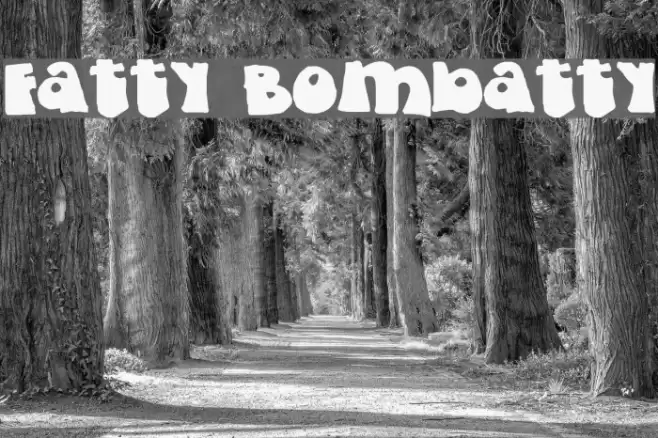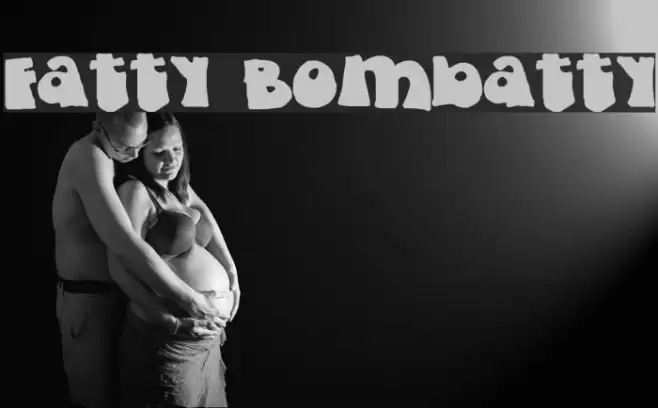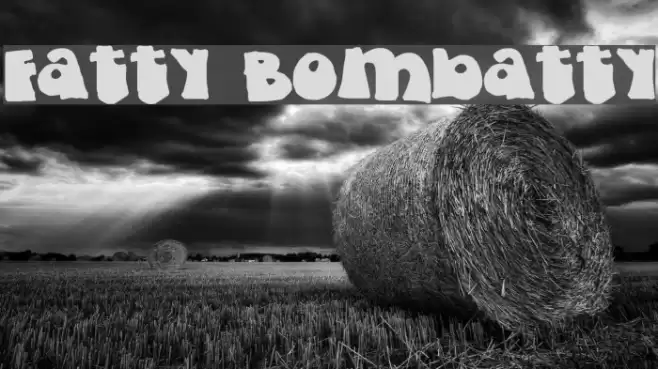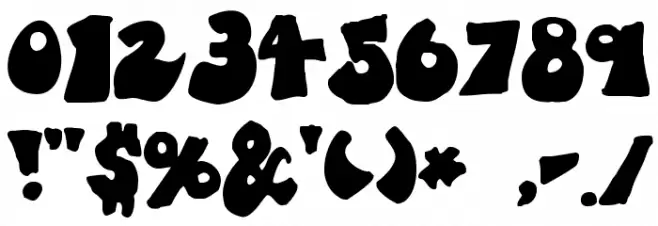
Fatty Bombatty Font
Fatty Bombatty Description
This font features a bold and playful design with exaggerated, chunky letterforms that create a sense of fun and whimsy. The characters are heavily weighted, with a consistent thickness throughout, giving them a strong presence on the page. The rounded edges and irregular shapes add a casual, informal feel, making it ideal for projects that require a touch of humor or creativity. The font maintains a uniform width across all characters, ensuring a balanced and cohesive look. Its unique style is perfect for capturing attention and conveying a lively, energetic vibe.
A bold, playful font with chunky, rounded letterforms and a whimsical style from Decorative fonts.
- Proposed Projects: Ideal for children's books, playful branding, party invitations, and creative posters.
- Overall Style: Playful, Whimsical